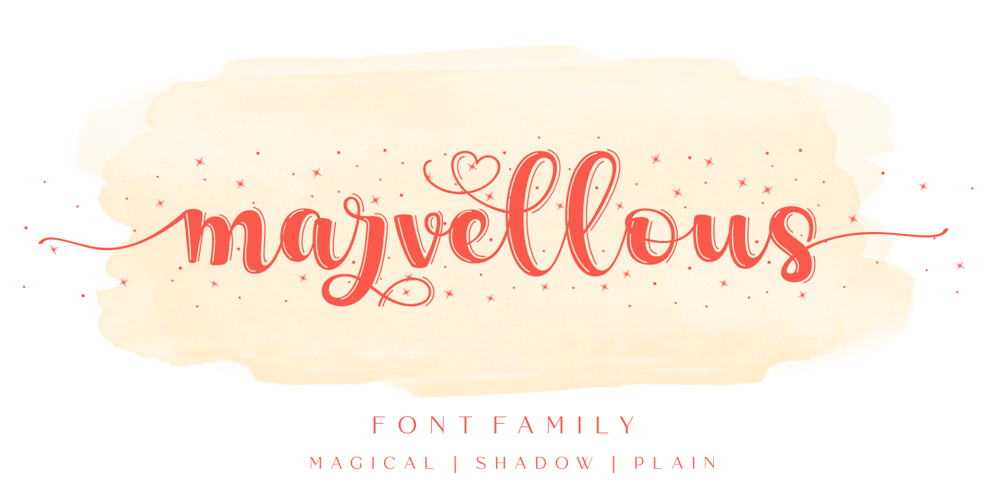
Marvellous Script Font Family was designed by Alfin Weniardi and published by Lone Army. Marvellous Script contains 3 styles and family package options. Marvellous Script – A Perfectly Magical bouncy Script hand letteredCreative and Casual, together or apart, make tons of gorgeous typographic designs, just in time for all your Christmas labels, cards, and branding too!Perfect for DIY projects, greeting cards, labels, quotes, posters, invitations, wall art, branding, packaging, websites, photo & photography overlays, signs, window art, tags and so much more!Marvelous has an alternate beginning and ending set as well